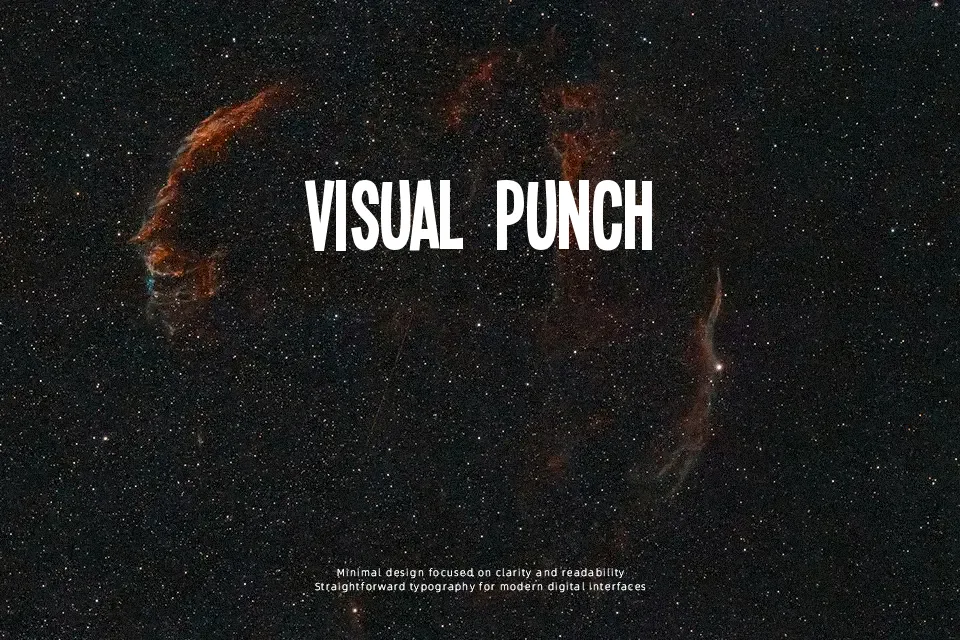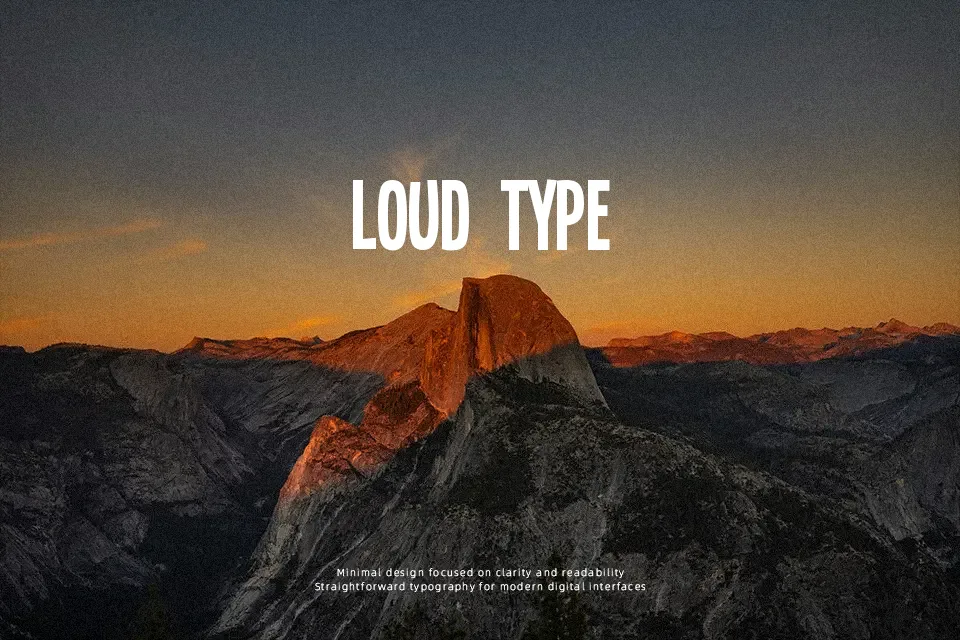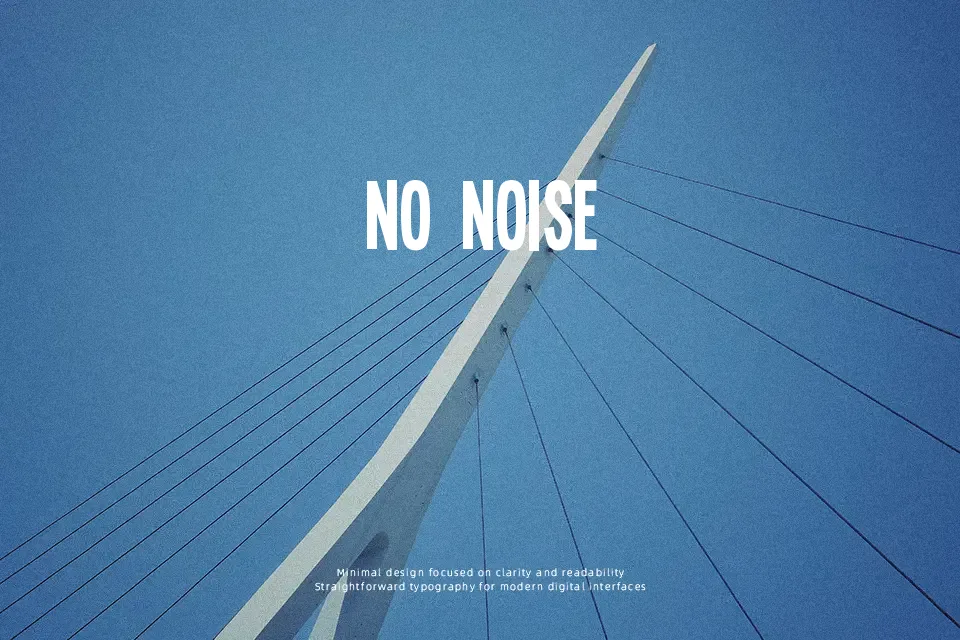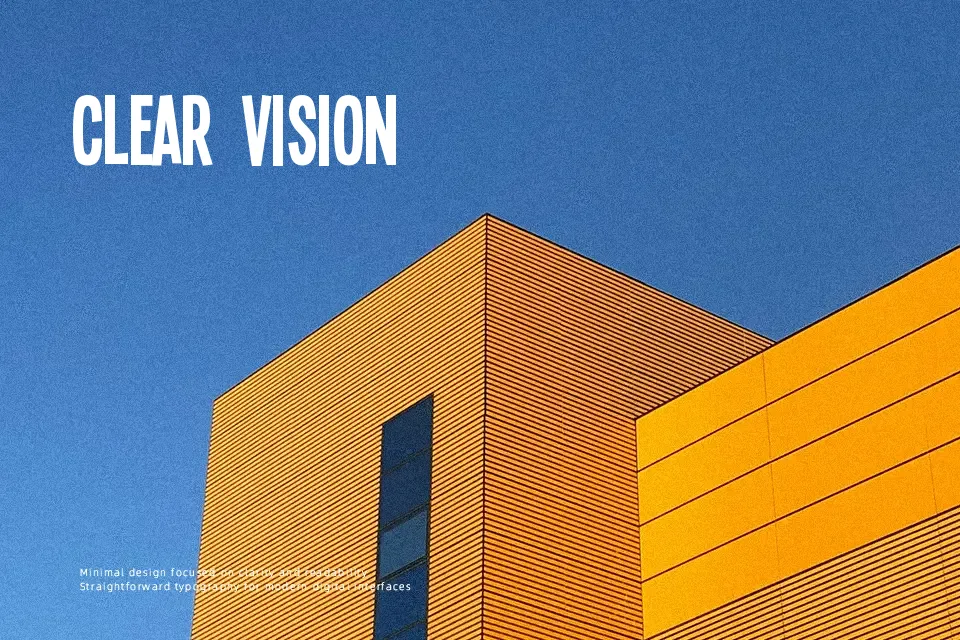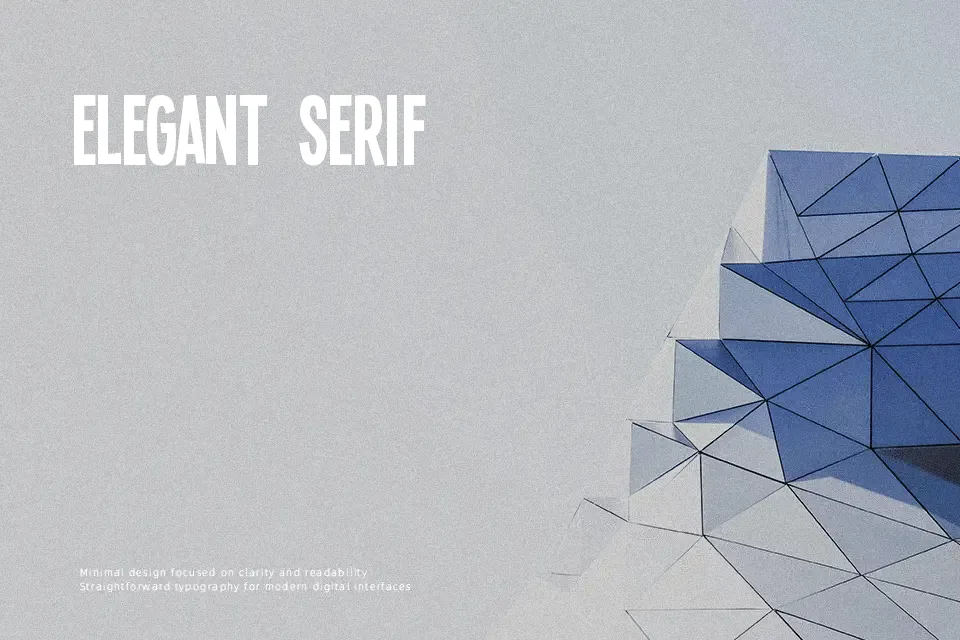
Single Sleeve Font
Designed by Vic Fieger
Single Sleeve Font features clean, relaxed letterforms with rounded terminals and steady, uniform stroke widths. The character spacing is comfortably open, giving the overall design a balanced rhythm that prevents crowded layouts in larger titles. Generous lowercase proportions and distinctive uppercase forms ensure immediate clarity when viewed at display scale. This typeface functions exceptionally well in animated video titles, graphic novel covers, and playful product packaging. However, the informal hand-drawn structure reduces reading efficiency across dense paragraphs and technical documentation. While extended text blocks can feel overwhelming, the design excels at delivering welcoming personality in medium to large promotional headlines.
Best For: comic book dialogue, animated video titles, playful product packaging, children’s event posters
Not Ideal For: dense paragraph text, corporate financial reports, legal contracts, small technical documentation
Perfect for headline, kids, and packaging, with a creative and comic style.